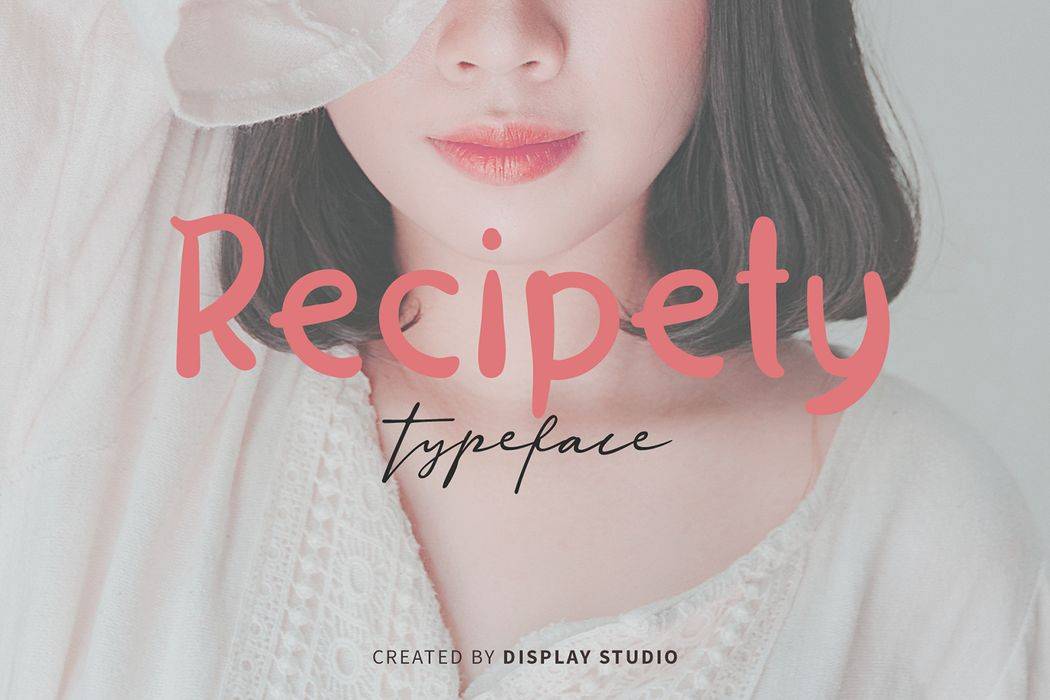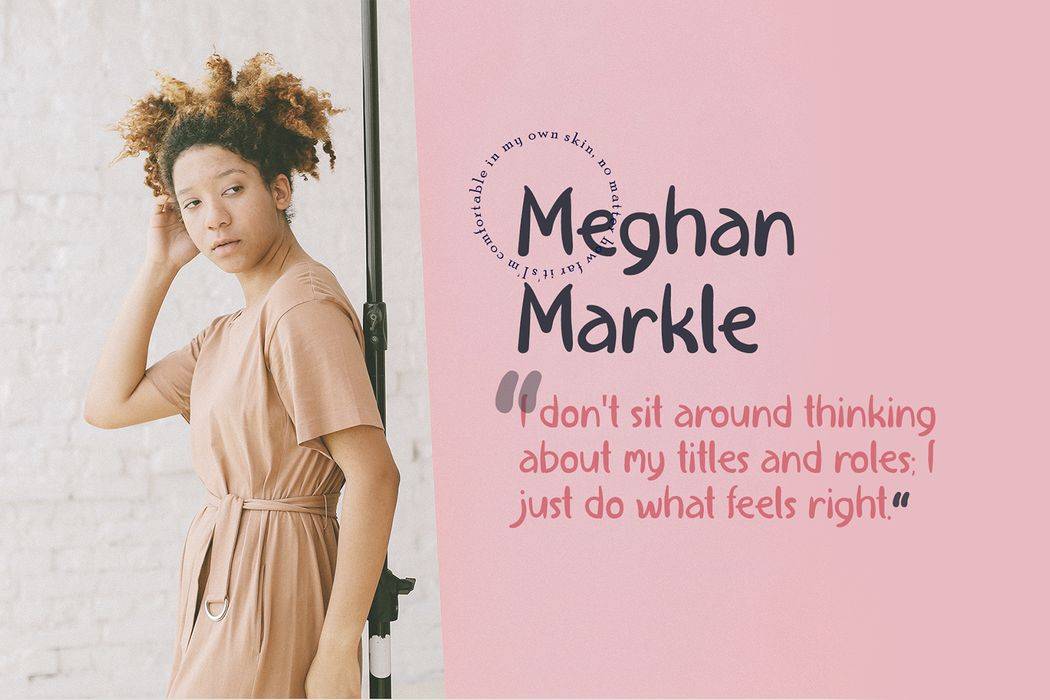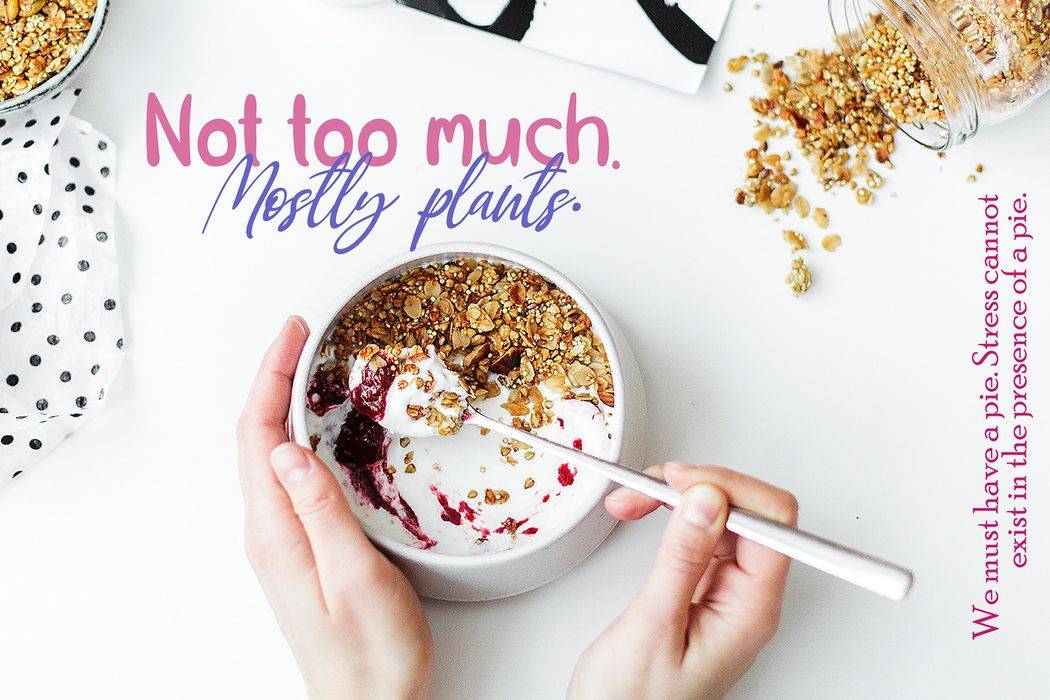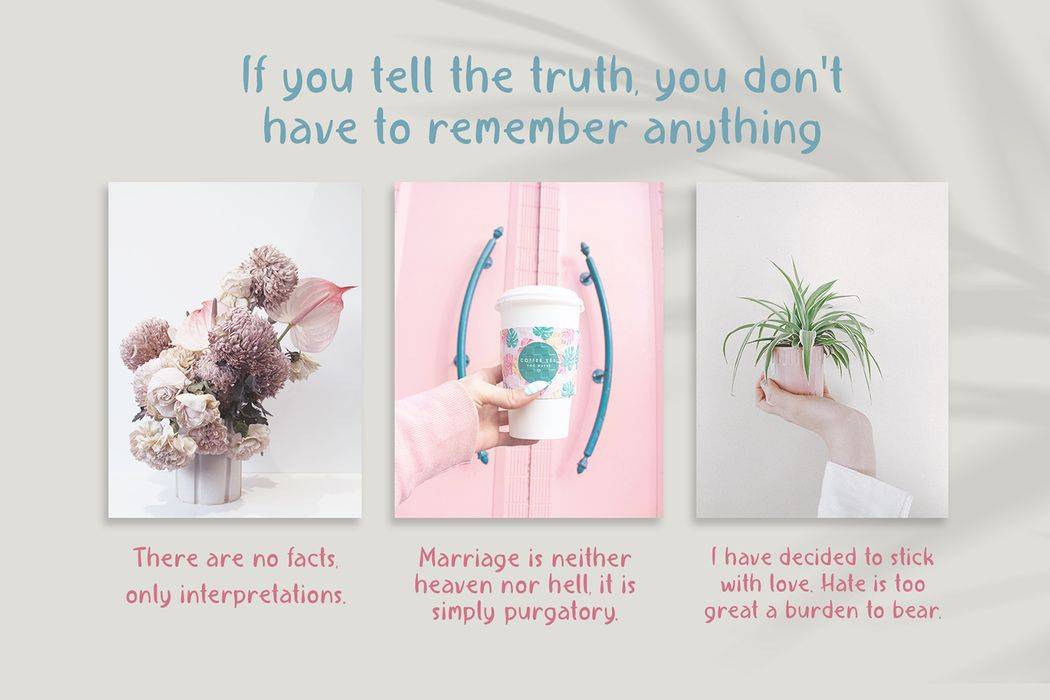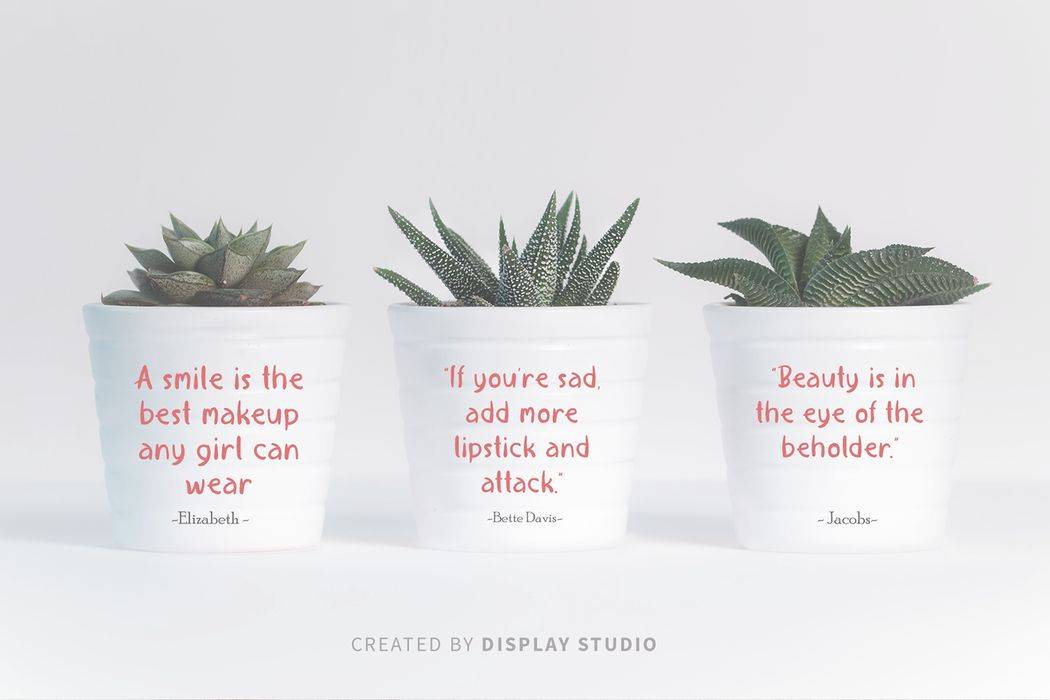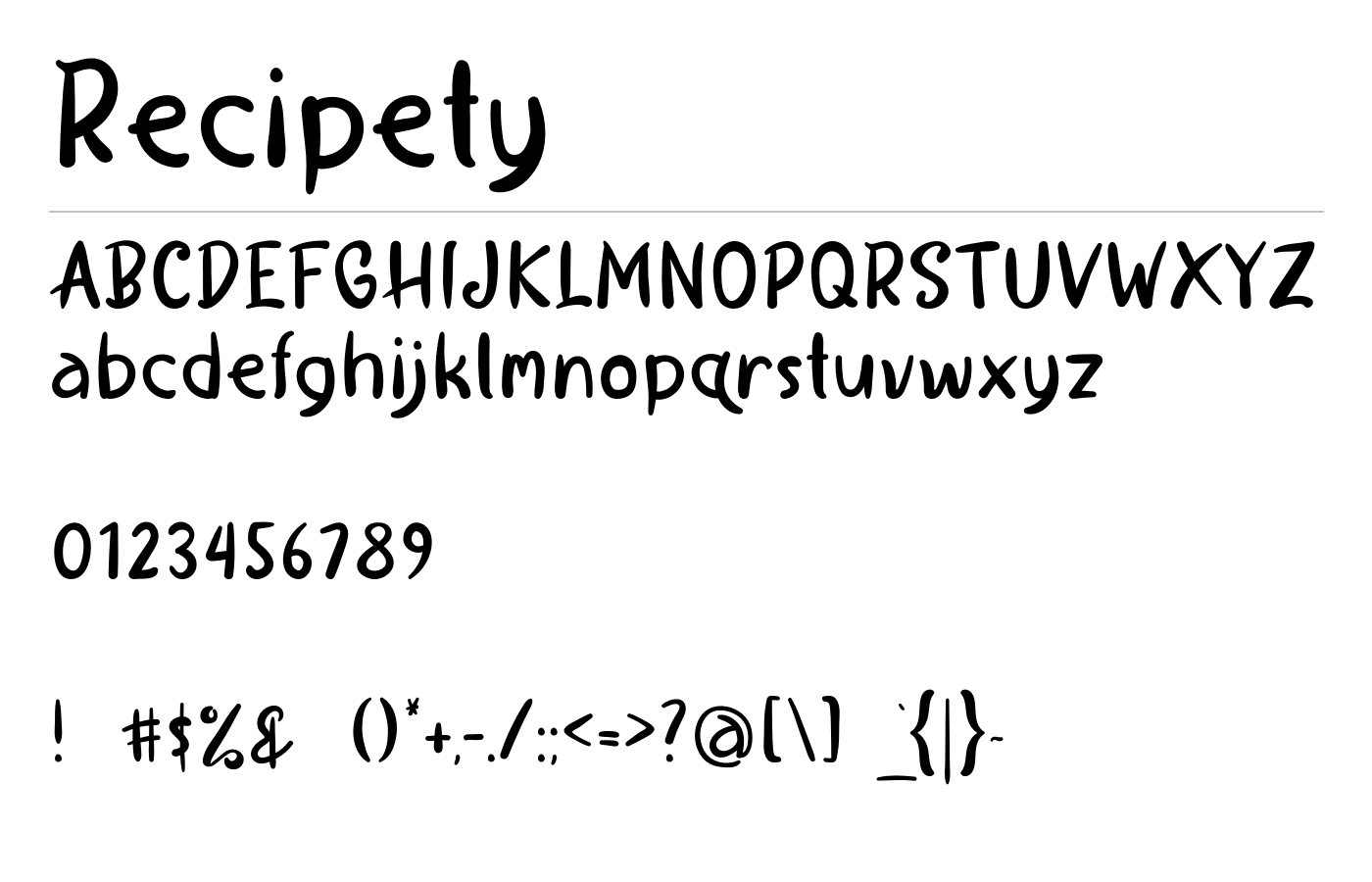
Recipety is a playful, hand-drawn sans serif font with a casual, friendly feel. Its irregular, slightly wobbly letterforms and moderate stroke contrast give it a warm, approachable character perfect for creative projects aiming for a personal touch. This font works well for informal branding, children's books, social media graphics, and packaging that seeks an inviting, homemade vibe.
Recipety Font
About Recipety Font
| Font family | Recipety Font |